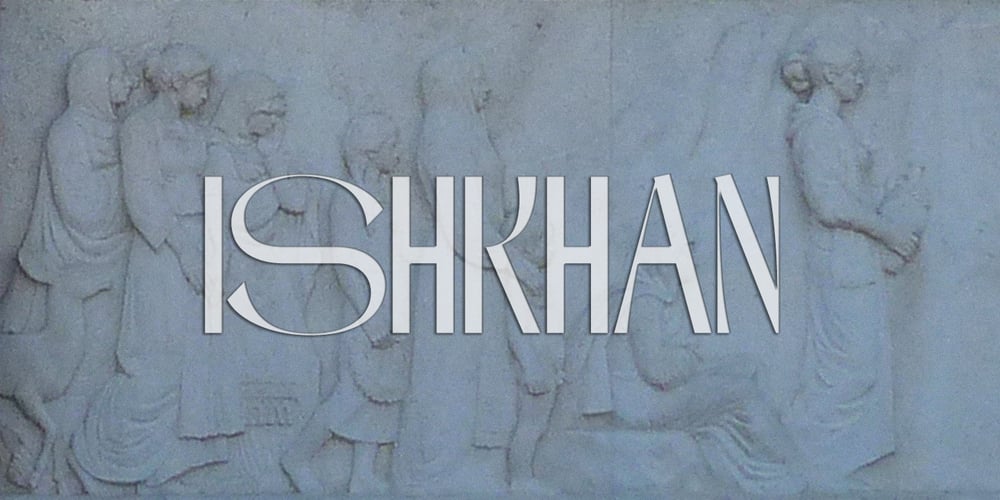
ArTarumianIshkhan Font Family was designed by Ruben Hakobyan (Tarumian) and published by Tarumian. ArTarumianIshkhan contains 1 styles and family package options. Font ArTarumianIshkhan (Ishkhan from Arm. “Prince” was created as a modern stylization of Armenian medieval lapidary letters.